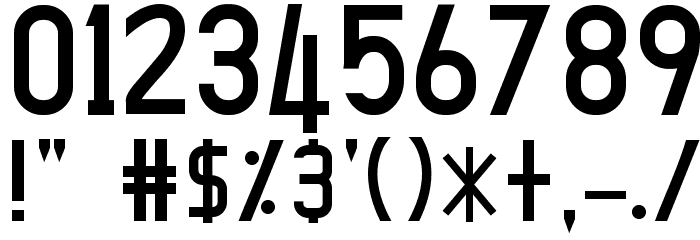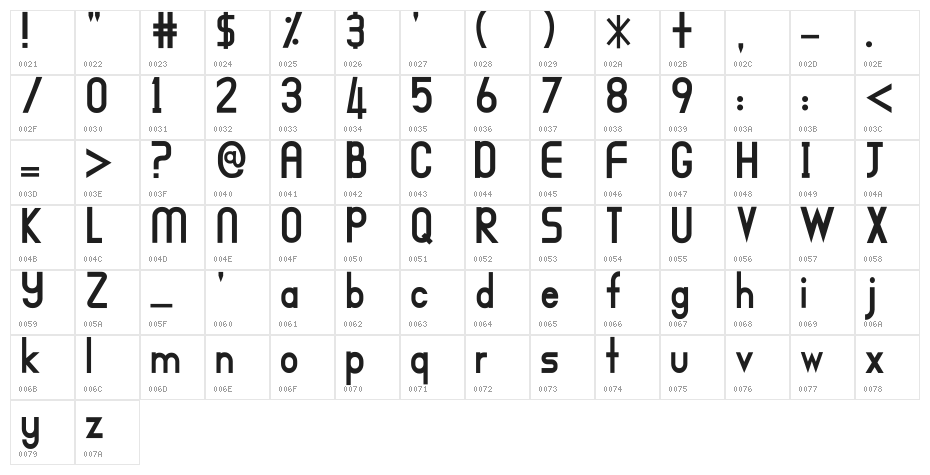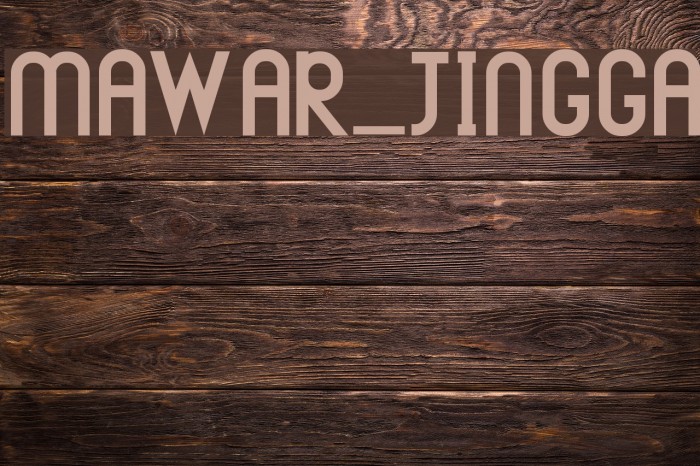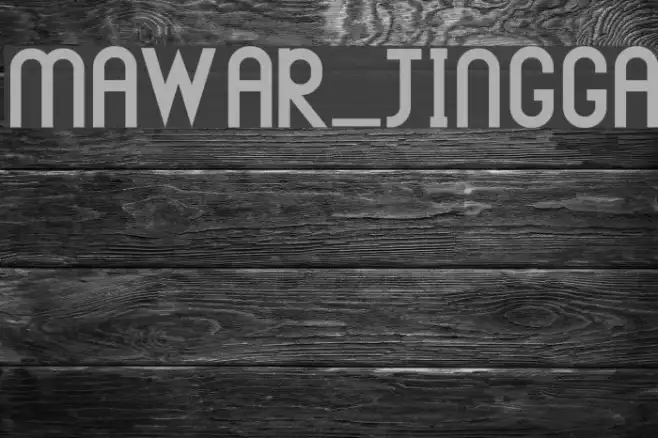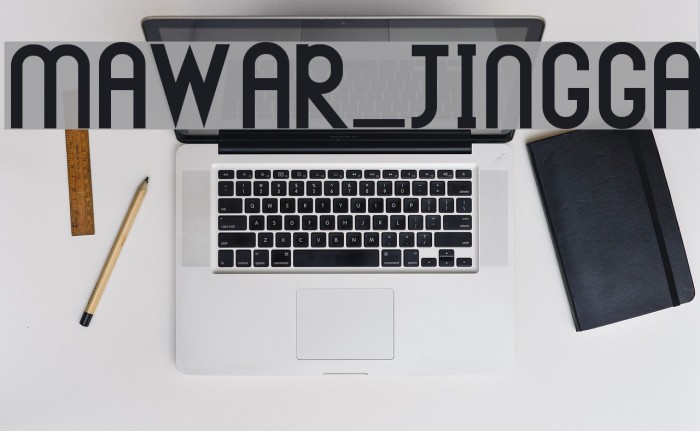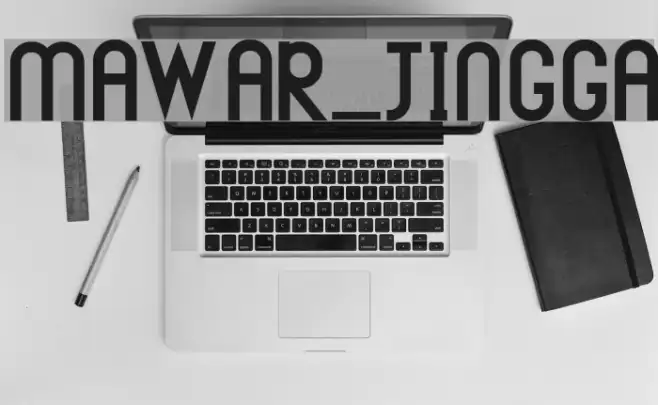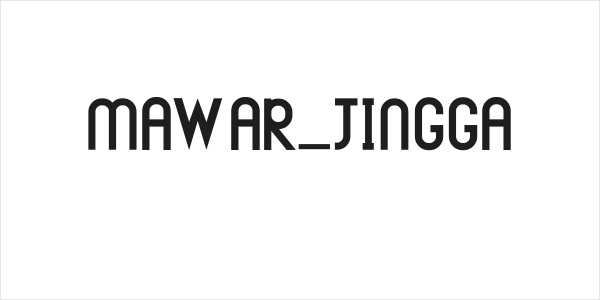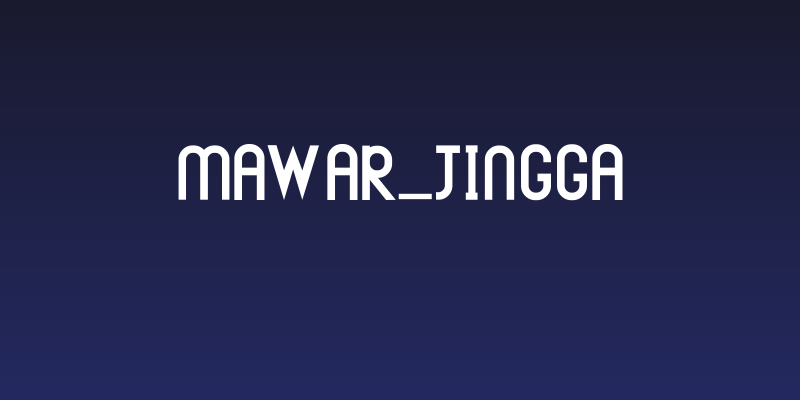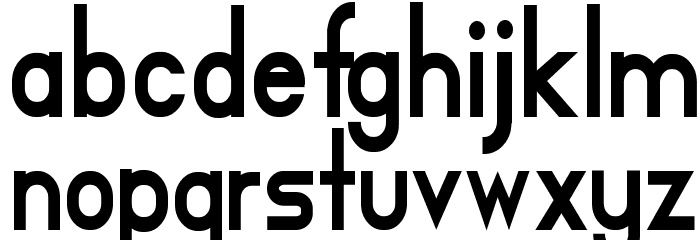
MAWAR_JINGGA Font
MAWAR_JINGGA Description
This font features a bold and modern sans-serif style with clean lines and a geometric structure. The characters are uniformly thick, providing a consistent and strong visual presence. The uppercase and lowercase letters are well-balanced, with a slightly condensed appearance that enhances readability. The numerals are clear and distinct, matching the overall aesthetic of the alphabet. Special characters are included, maintaining the same bold and structured design. This font is versatile, suitable for various design applications where a contemporary and impactful look is desired.